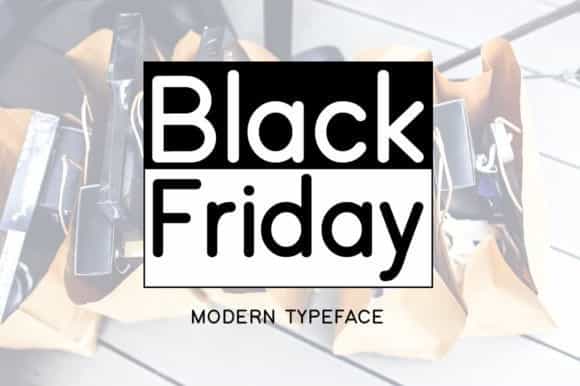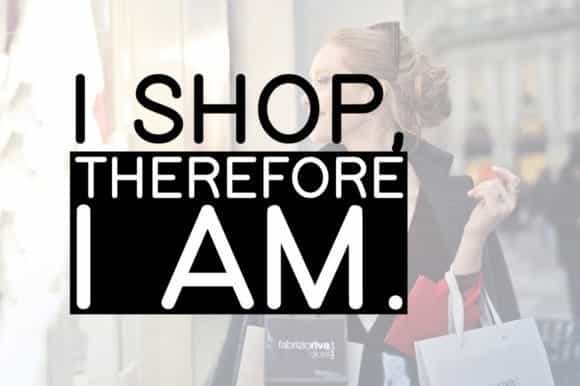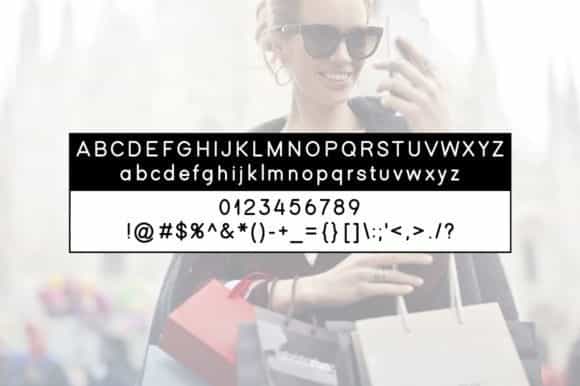
Discover Black Friday Modern Typeface, part of the Sans Serif Display collection—a versatile and unique font perfect for adding a personal touch to your projects. Download it for free and enjoy crafting designs with style, from invitations to social media posts. This font is available exclusively for personal use, giving you the freedom to create without limits. Unlock your creativity with Black Friday Modern Typeface today!
Black Friday inherits the forms of its predecessor while introducing a touch that exudes friendliness and freshness. It’s perfect when you need a hint of elegance, in your projects. Whether its logos weddings invitations quotes advertising material print publications magazines and more!